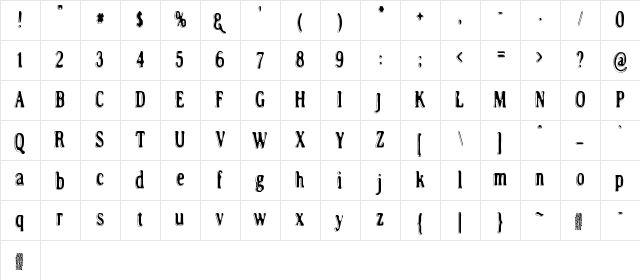
Road to nowhere Regular
| Designer | junkohanhero |
Design Context for Road to nowhere Typeface
Road to nowhere takes a measured approach to typography — its balanced proportions and neutral character make it a reliable workhorse for both digital and print work.